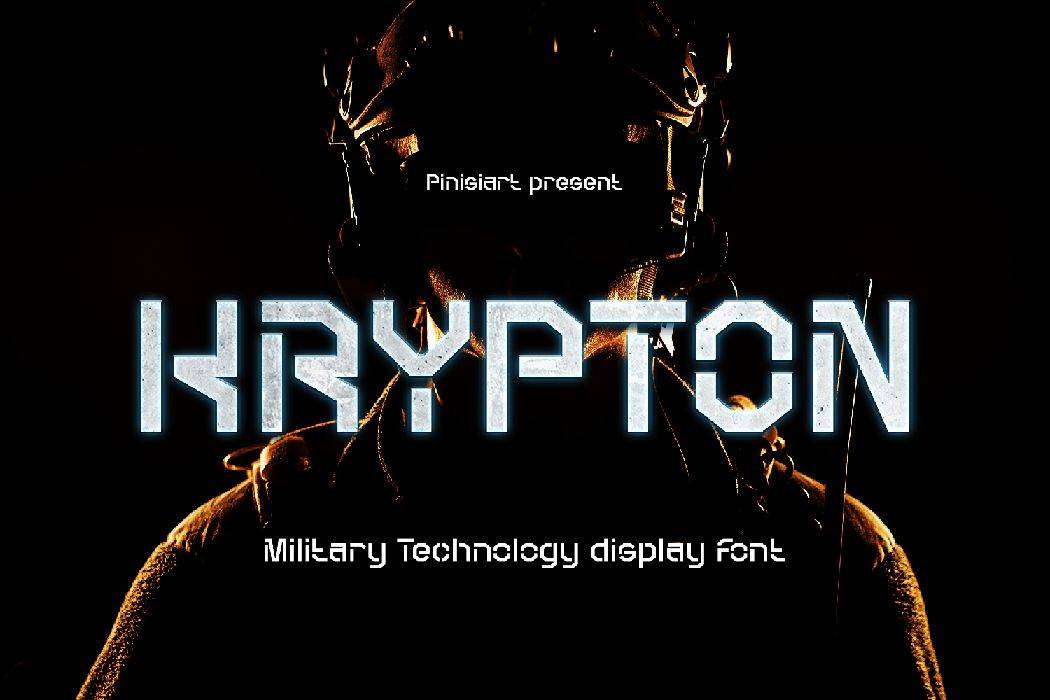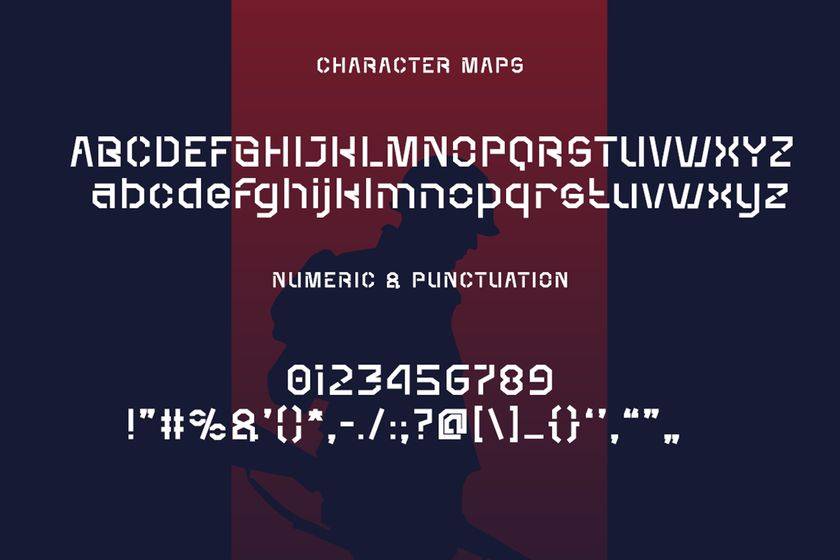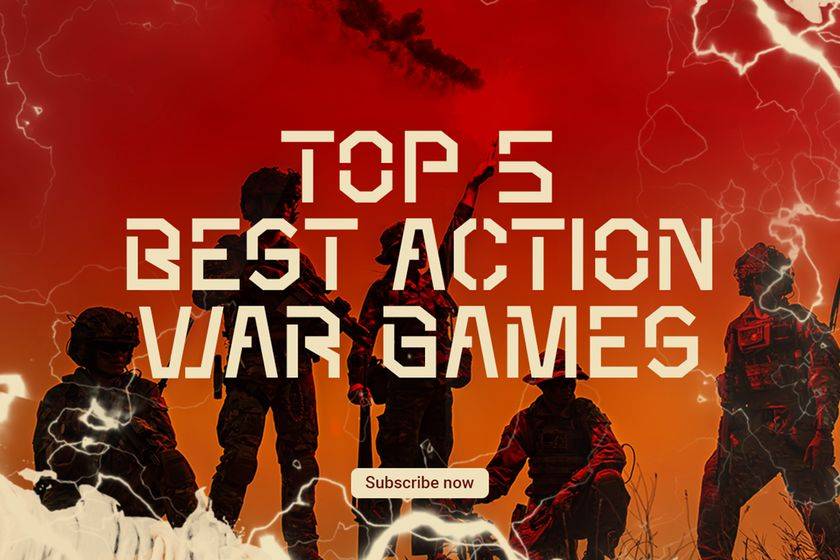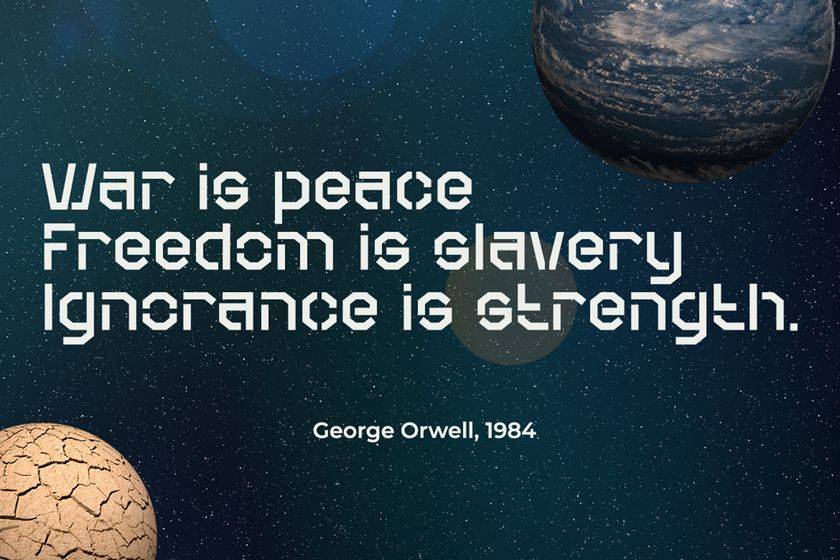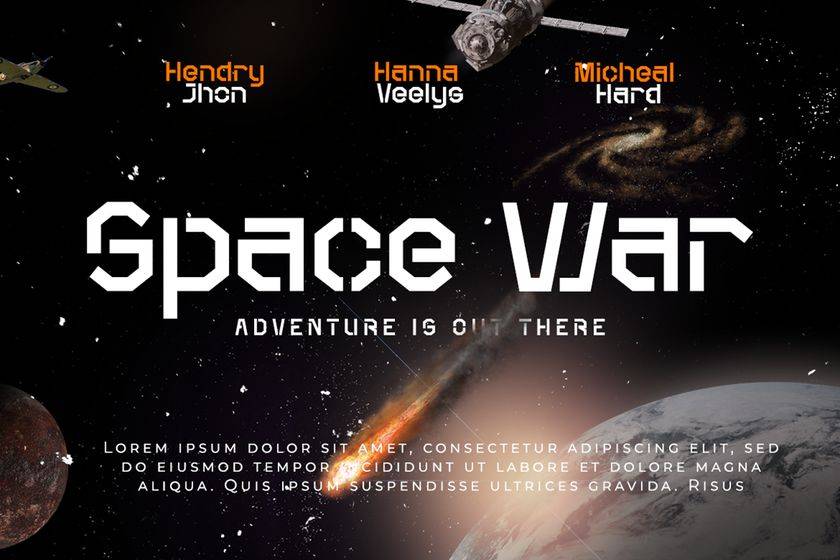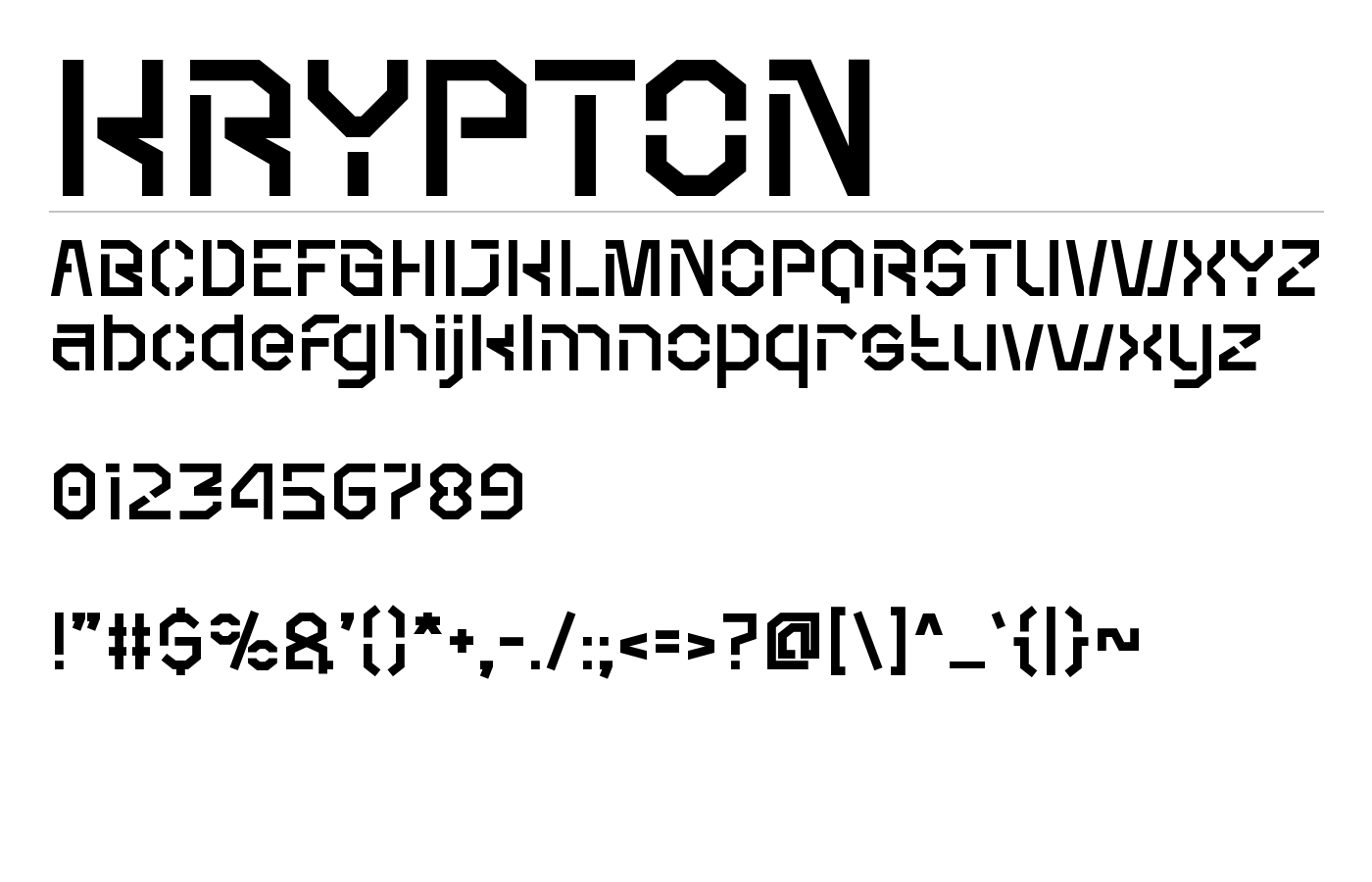
Krypton is a bold, angular sans serif font with a futuristic and tech-inspired style. Its sharp geometric shapes and consistent stroke width give it a strong, modern look that works well for headlines, logos, and designs requiring a cutting-edge, digital feel. This font suits brands and projects in technology, gaming, and science fiction, where a distinct and commanding presence is desired.
Krypton Font
About Krypton Font